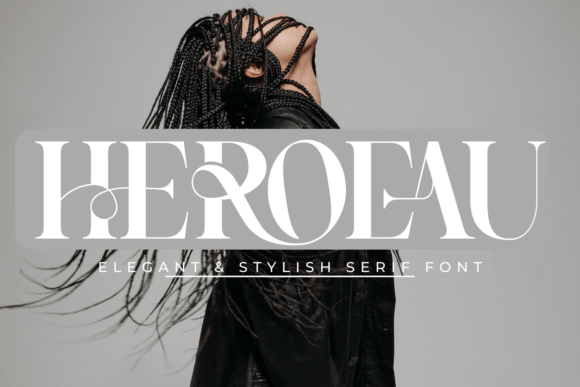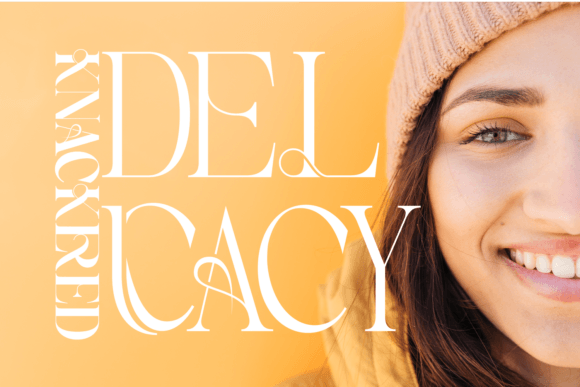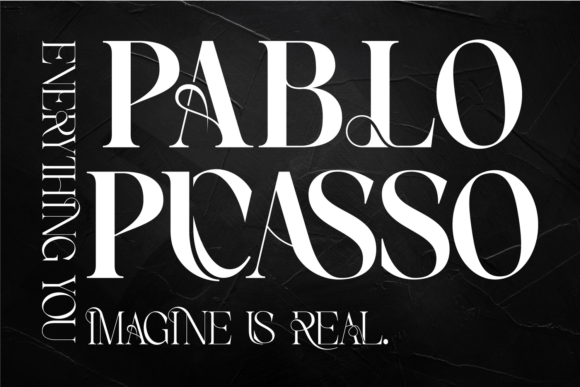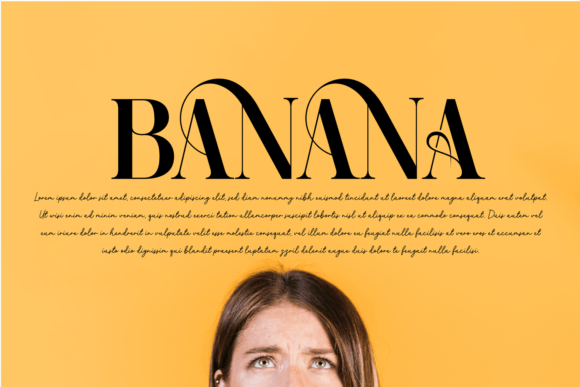
Heroeau Elegant Font
About the Heroeau Elegant Font
Add a touch of class to your work with the Heroeau Elegant Font, a truly exceptional typeface. Heroeau Elegant Font is a luxury serif font. Create luxury, gorgeous headlines, and elegant designs with a vintage flair. Its stylish design is perfect for creating a classic and contemporary feel in your projects. Its contrasting lines and curved terminals give a sleek, elegant look to logos, holiday cards, wedding invitations, quotes, advertisements, and more.
Heroeau excels in headline usage, short-form text, and applications requiring a touch of vintage elegance, such as logos, branding for luxury goods, or high-end invitations. It’s less suitable for body text or lengthy paragraphs due to its relatively high x-height and strong stroke contrast. Avoid using it in user interfaces or situations requiring high readability at small sizes.
Pairing Heroeau effectively requires consideration of its inherent elegance. A clean, geometric sans-serif like Montserrat or a modern, neutral sans-serif such as Lato would provide a strong contrast and enhance readability when used for supporting text. For a more traditional feel, pair it with a complementary serif like Playfair Display or a script font like Great Vibes for added flourish in specific design elements.
The overall personality of Heroeau is sophisticated and refined, leaning towards a classic yet contemporary aesthetic. It projects an air of luxury and timeless quality, making it ideal for brands emphasizing heritage, craftsmanship, or high-end products.
Heroeau Elegant Font Usage Examples
Heroeau Elegant Font Example